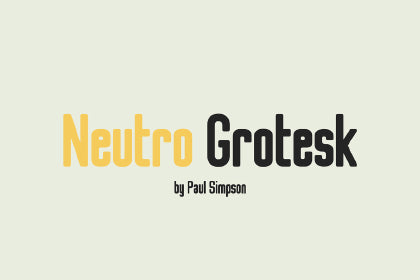
Download and enjoy this free neutro grotesk typeface. Cool typeface to showcase your designs in a modern way. Free Design Resources has created this amazing and beautiful free typeface. Amaze your fellow designers and create stunning designs with this cool font.